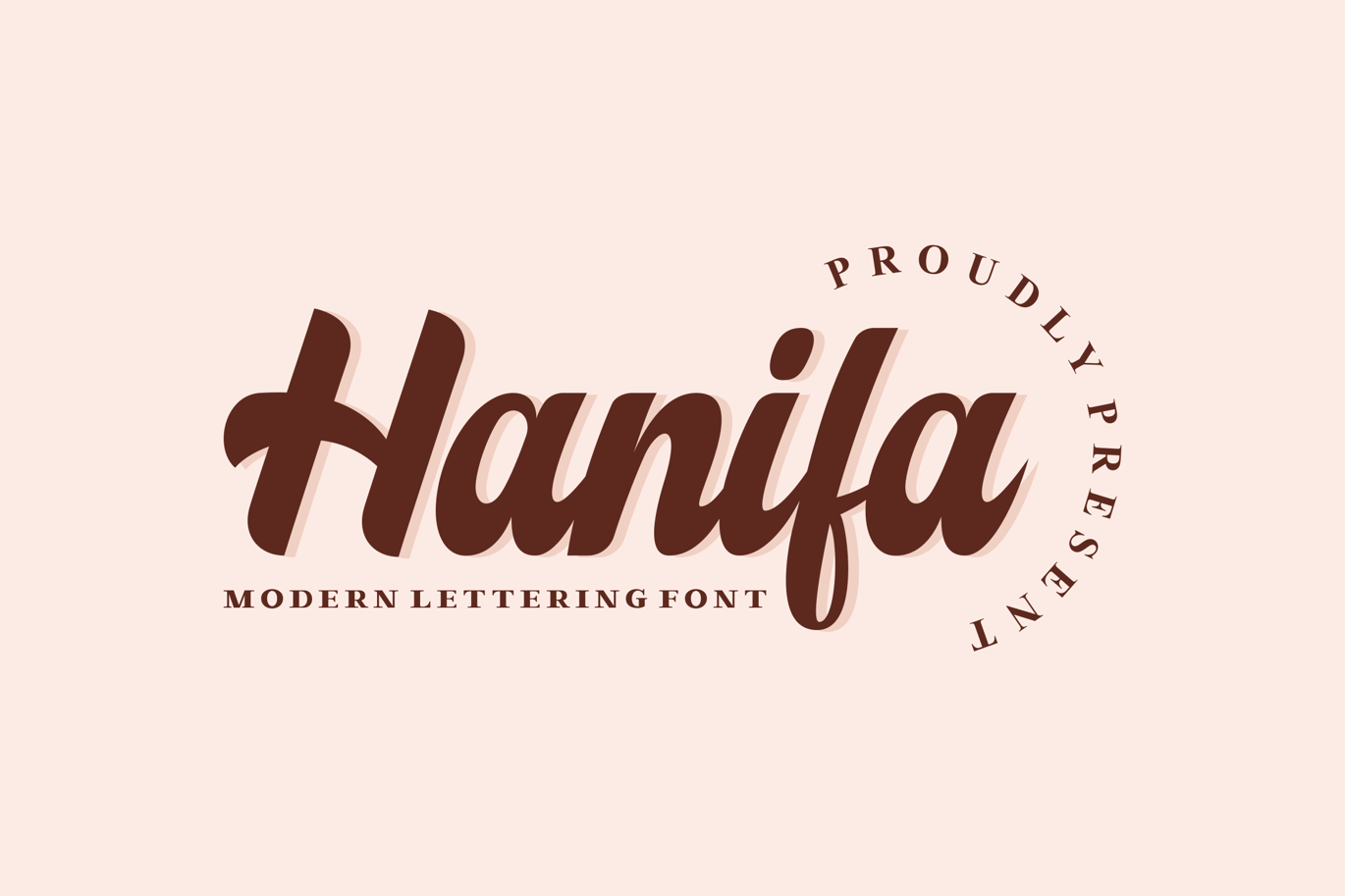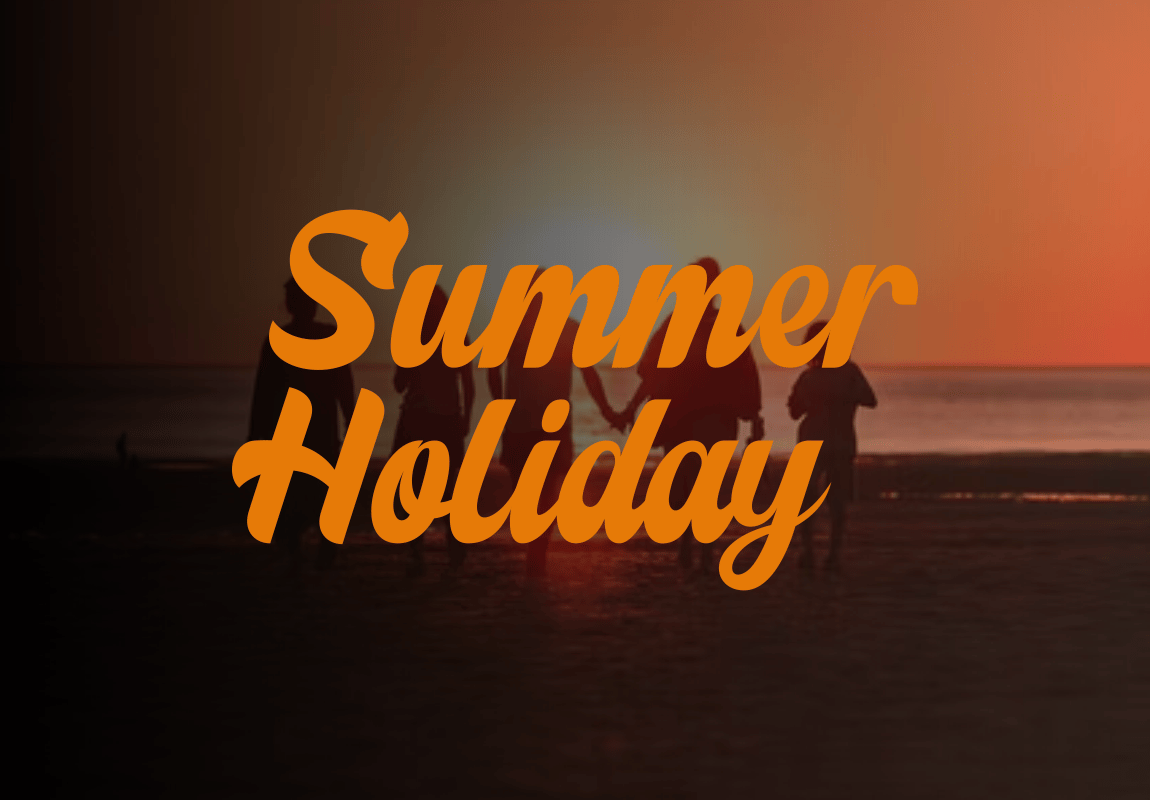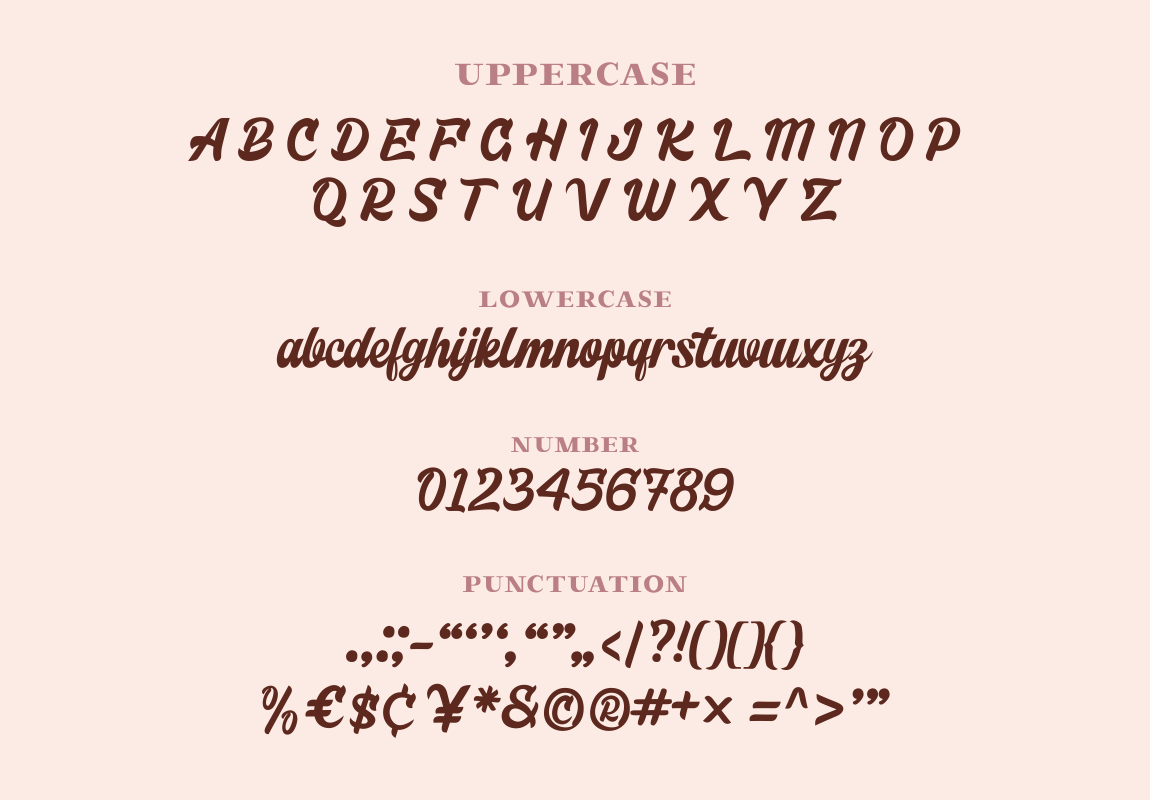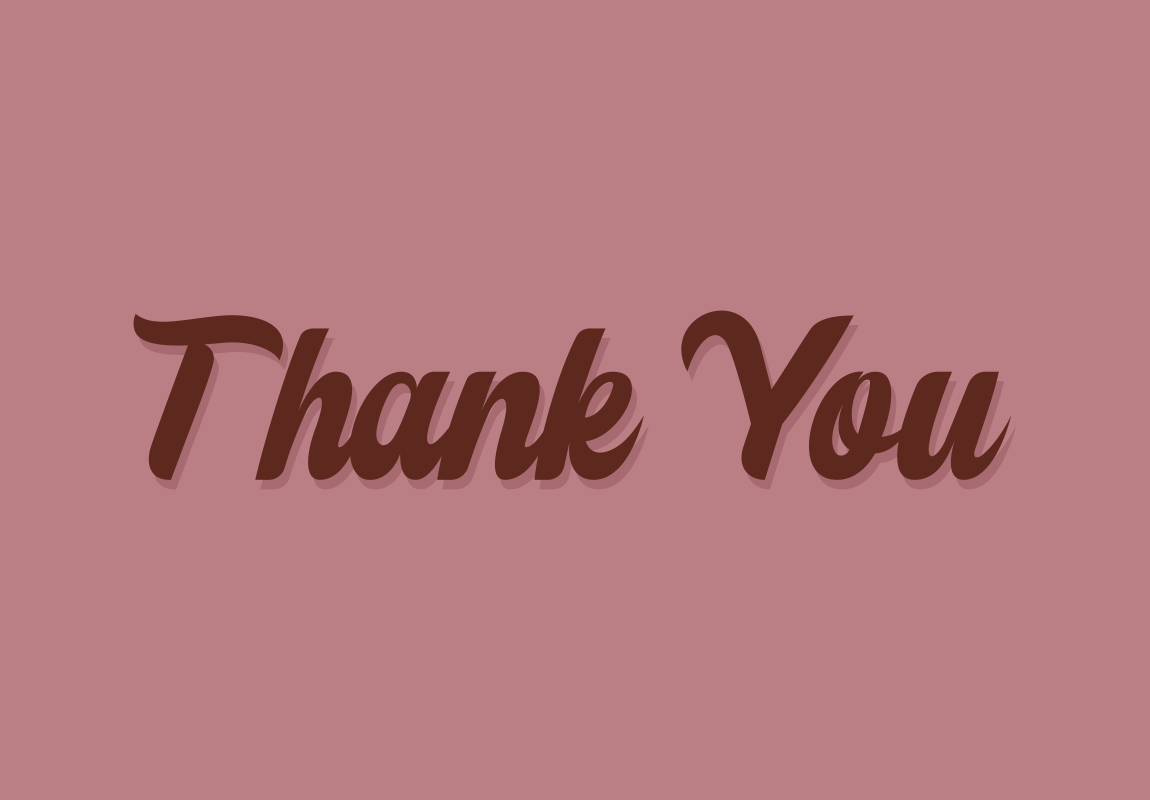
Hanifa Modern Lettering Font
Hanifa Modern Lettering font. This font perfectly made to be applied especially in logo, and the other various formal forms such as invitations, labels, logos, magazines, books, greeting / wedding cards, packaging, fashion, make up, stationery, novels, labels or any type of advertising purpose.